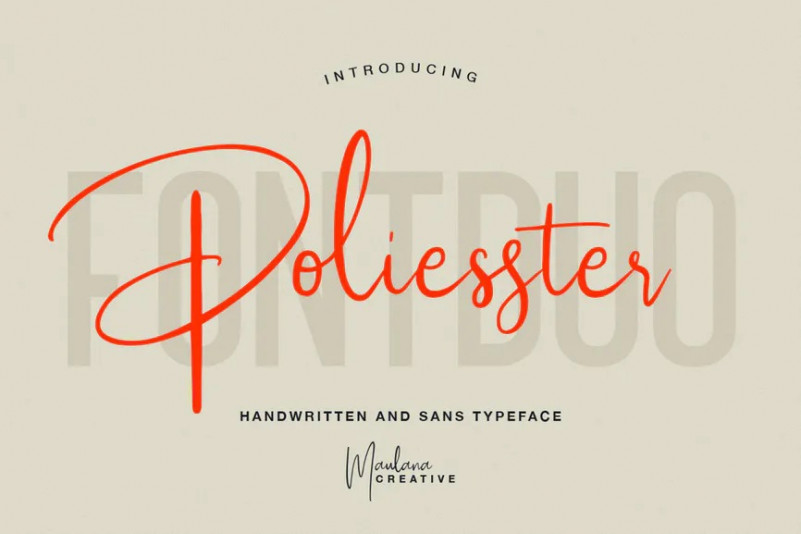
Poliesster Font
Give your designs an authentic handcrafted feel. “ Poliesster” is perfectly suited to signature, stationery, logo, typography quotes, magazine or book cover, website header, clothing, branding, packaging design and more.